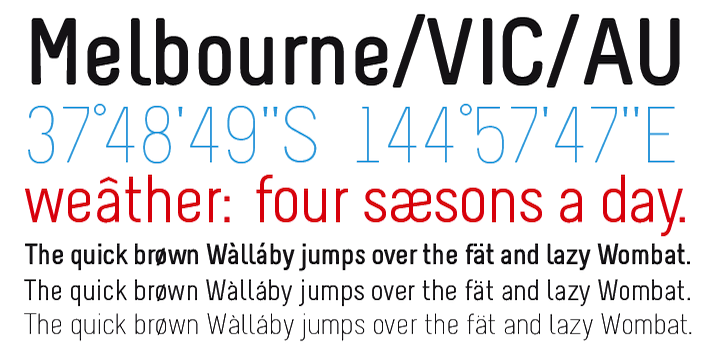
Melbourne is a sans-serif font with a modern touch. The first drafts of the typeface where drawn in 2008 during a study-abroad semester in Australia. The idea was to create a clean and compact font that can be used in various ways.